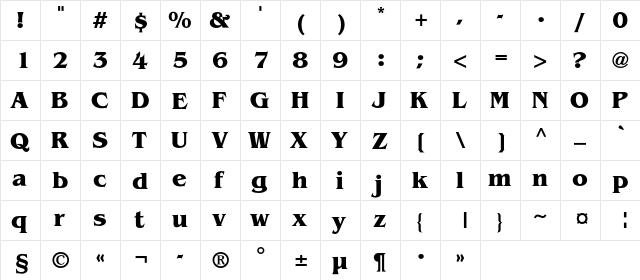
AGBengalyC Bold
Design Context for AGBengalyC Typeface
AGBengalyC takes a measured approach to typography — its balanced proportions and neutral character make it a reliable workhorse for both digital and print work. The heavy weight commands attention and anchors typographic hierarchies.